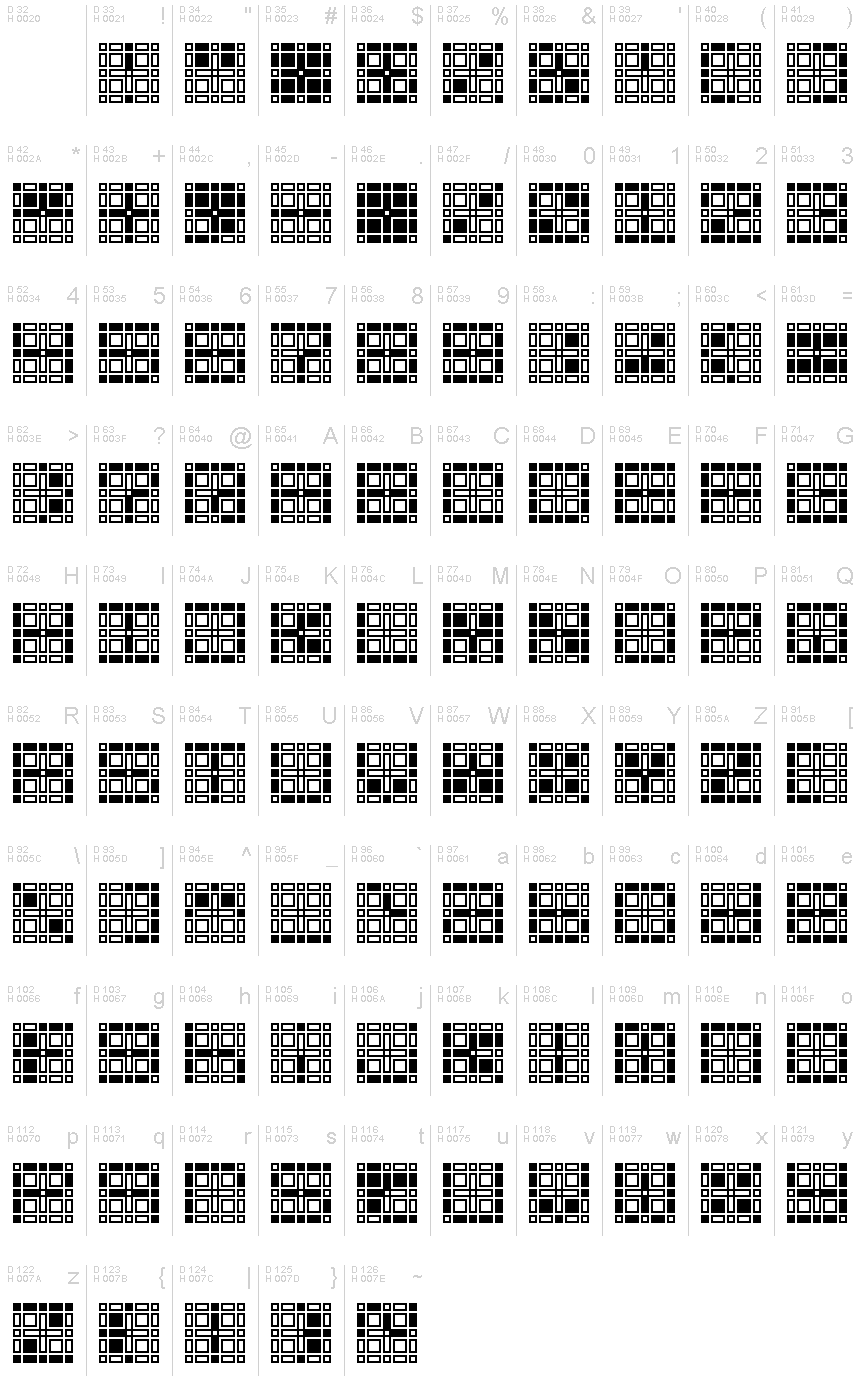
Qualtron Regular
Designer description: Experimental 24-segment display. Pixel compatible!
The thinking behind this one was that with incongruously sized segments arranged in the proper way, I would create a design which was effectively 5x5, but which accomodated more glyphs than 5x5 usually does.
"Qualtron" is the name of an imaginary entity that a friend believed in - a being meant to represent the result of "a mathematical equation that can rule the universe". I didn't inquire much further about it... :D
*
Design Rules:
1. Segments can have length/height of 2 or 5.
2. The central 2x2 square must always remain open.
3. Square bricks and 90-degree angles only.
*